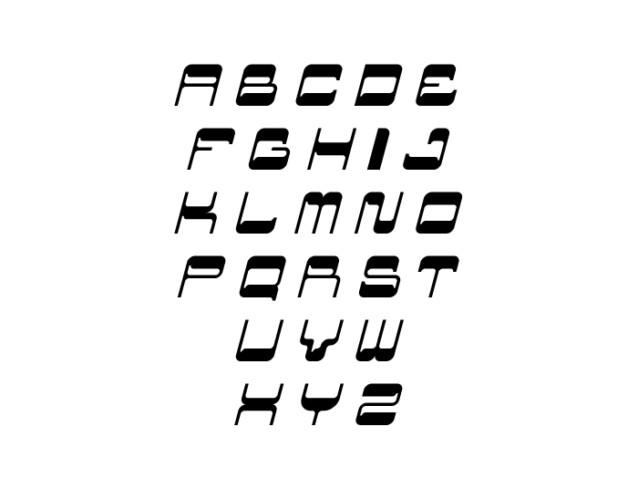
Neotrap Display Font
Neotrap Display Font is a futuristic and bold typeface that stands out with its unique, edgy design. Perfect for both personal and commercial use (donation required for commercial projects), Neotrap combines modern aesthetics with a dynamic twist, making it ideal for tech-related designs, gaming interfaces, and avant-garde branding. Its distinct style ensures a strong visual impact while maintaining clarity and readability. Download Neotrap today and take your designs to the next level with this innovative and eye-catching font!